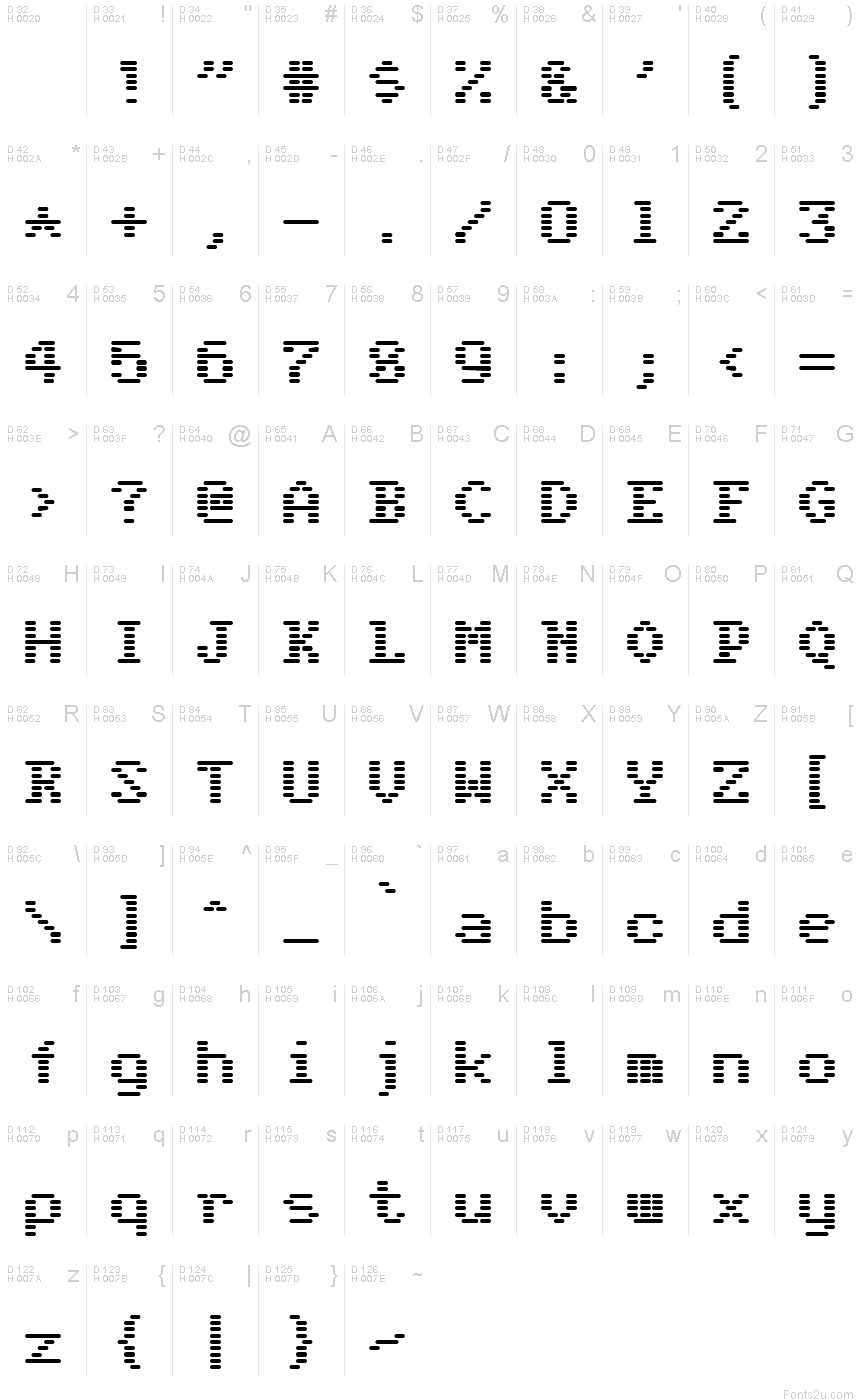
Anger is a gift
Anger is a gift font by Jakob Fischer of PizzaDude is a free digital display typeface that looks like it just crawled out of an old, glitchy LED board. Each letter is built from tight little pixel-like dots that wobble and stutter, giving words a raw, buzzing energy instead of a clean, sterile grid. It feels rough, handmade, and slightly chaotic, as if someone hacked a scoreboard and forced it to shout.
Using Anger is a gift, you get text that crackles with attitude on gig posters, underground event flyers, album covers, hacker or cyberpunk graphics, zines, and retro game titles. This free font shines when you set it big and bold, letting the dotted texture read clearly and create a gritty digital haze. Pair it with a simple geometric sans for body copy to keep layouts readable while the headline misbehaves in all the right ways.